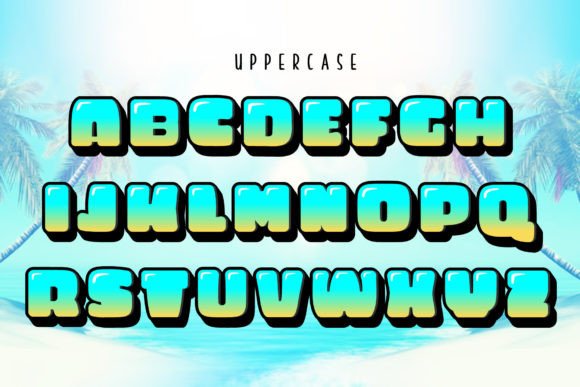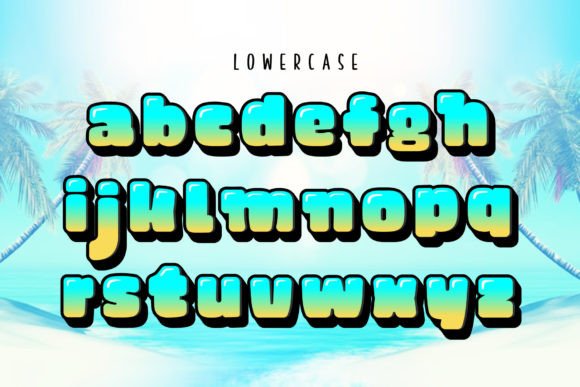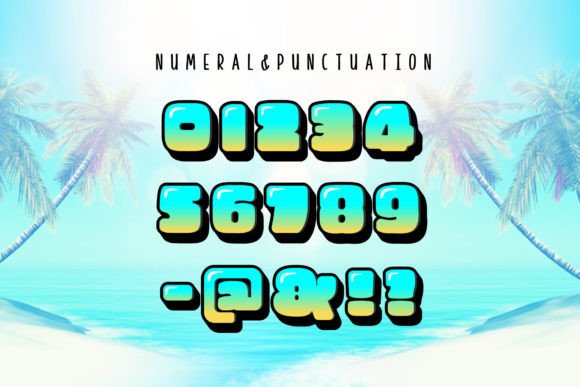
Summer Season Bluey Font
About the Summer Season Bluey Font
Meet Summer Season Bluey Font, a stunning font that brings a touch of elegance and professionalism to any design. Summer Season Bluey is a color font in a cute Style with a great punch. Anything written in this font will be instantly recognizable and will grab attention. It will work great for comic book layouts, online games, cards, shirts, hats, bags, mugs, posters, movie titles, and eye-catching social media posts.